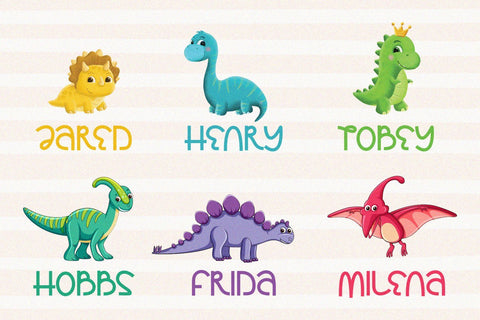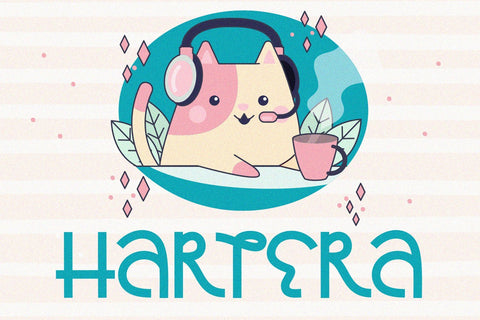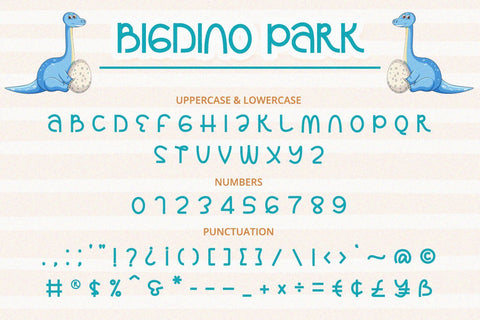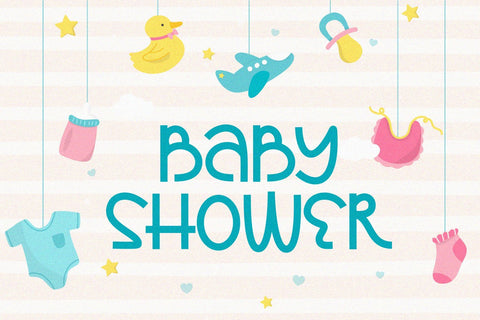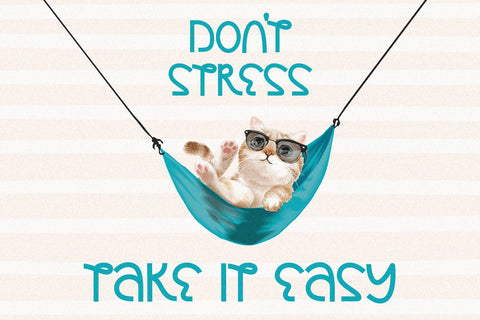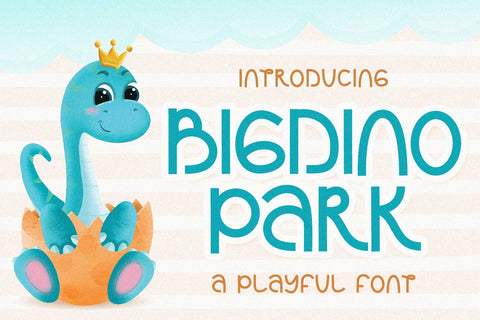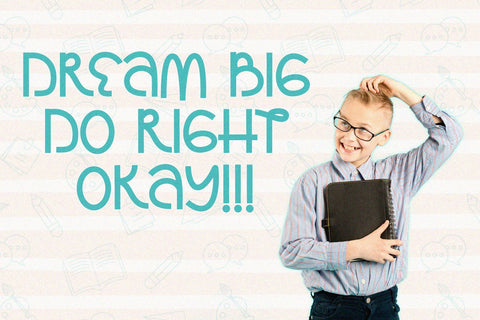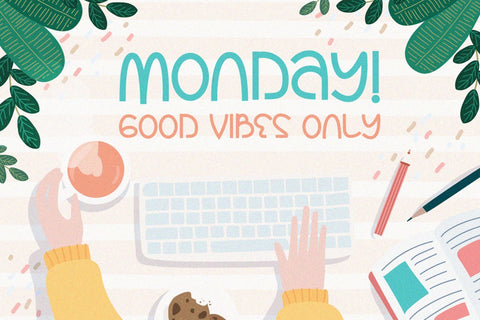
Bigdino Park - A Playful Font
Bigdino Park is a playful and elegant display font. Its distinct and well rounded letters make this font a masterpiece. Fall in love with its incredibly versatile style and use it to create spectacular designs!